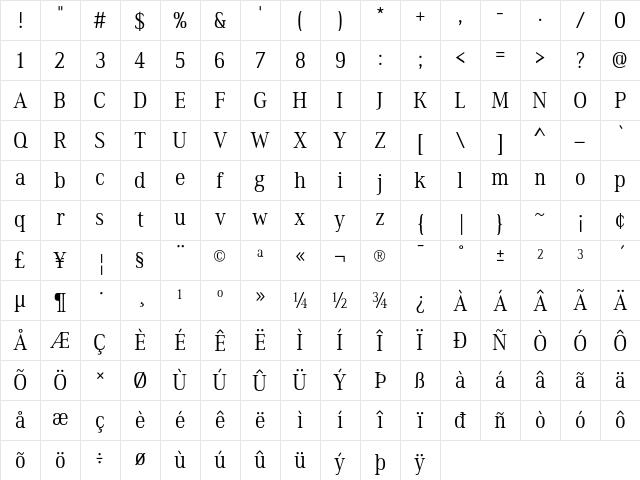
Ethos Condensed Light
Foundry: FONTS WITH LOVE
Designer: Florian Klauer
Design Context for Ethos Condensed
Ethos Condensed is a composed and adaptable typeface that performs quietly and consistently across a wide range of design contexts. Its slender proportions lend an understated elegance to any composition. Its narrow stance lets it pack a punch even in space-constrained designs.